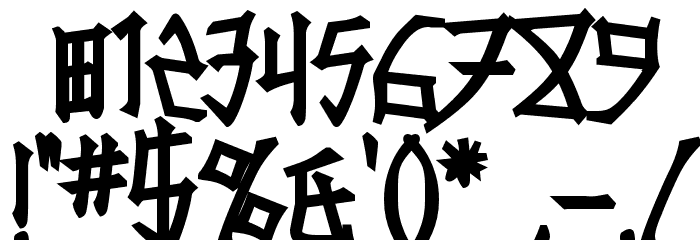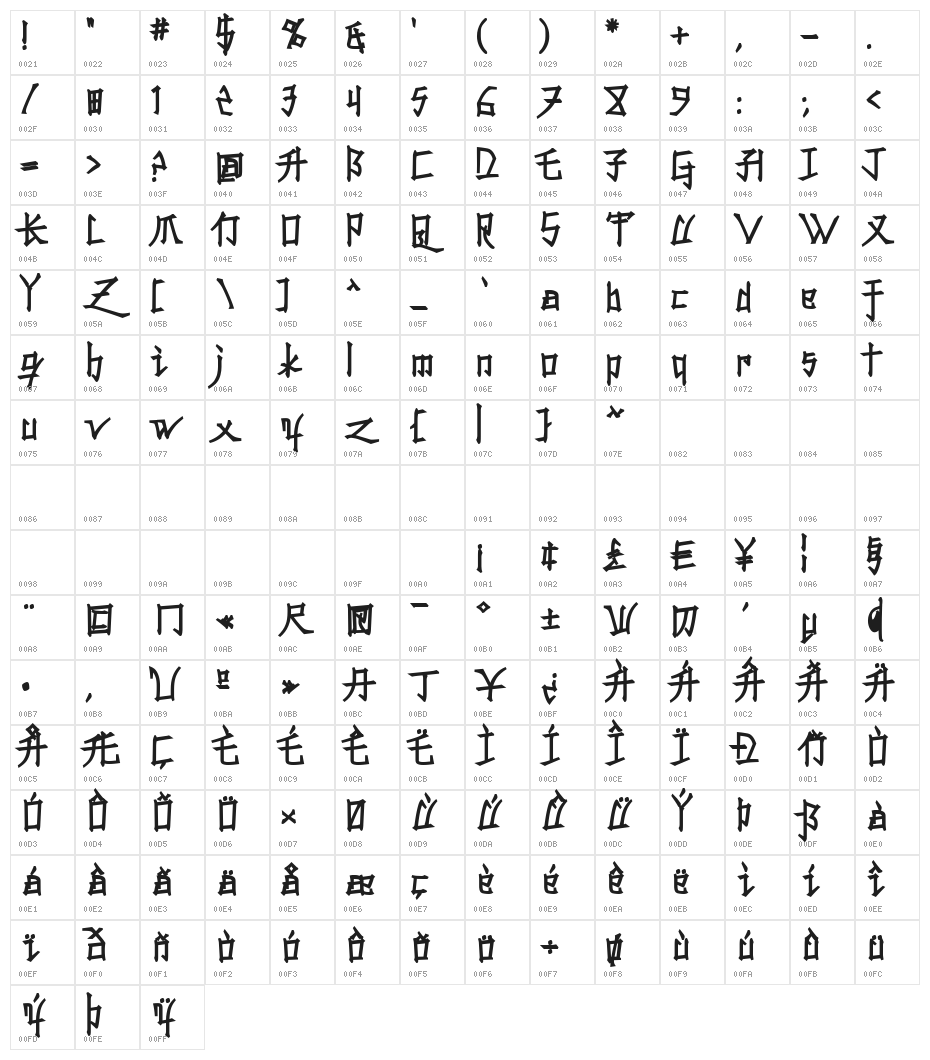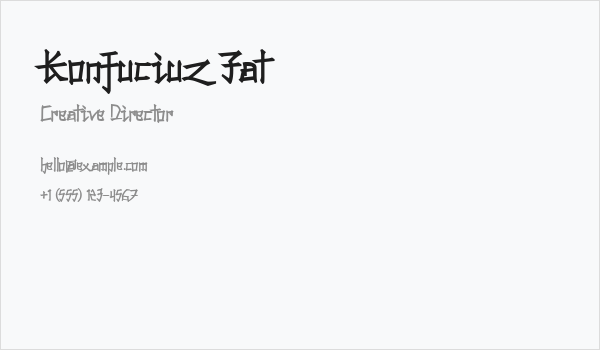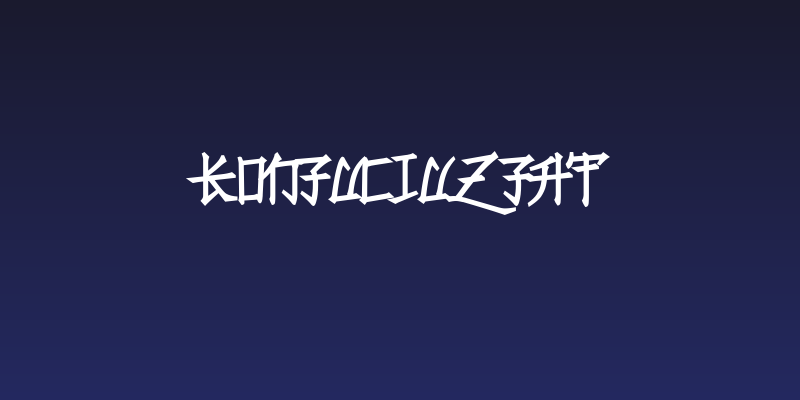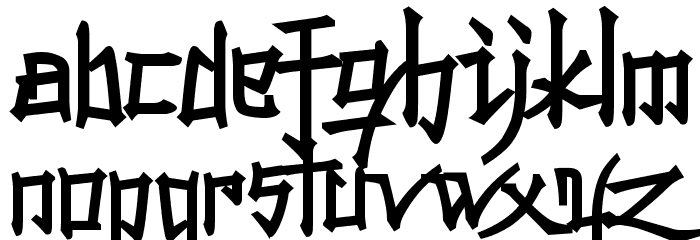
Konfuciuz Fat Font
Konfuciuz Fat Description
This font features a bold and angular design with a distinct geometric style. The characters are sharply defined with thick strokes, giving it a strong and impactful appearance. The uppercase letters have a consistent height, while the lowercase letters maintain a similar width, creating a uniform look. The numbers and special characters follow the same angular and bold aesthetic, ensuring cohesion across all elements. This font's unique style makes it stand out, suitable for projects that require a strong visual statement.
| Proposed Projects | Ideal for branding, posters, album covers, and any design requiring a bold statement. |